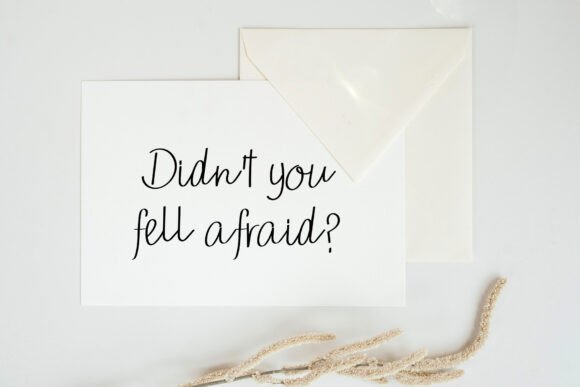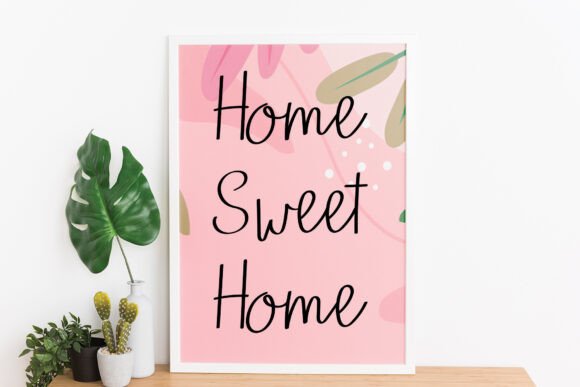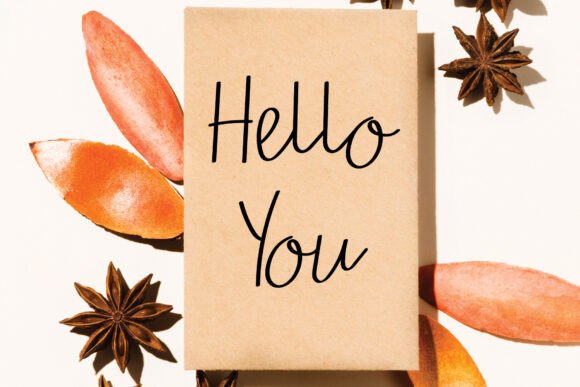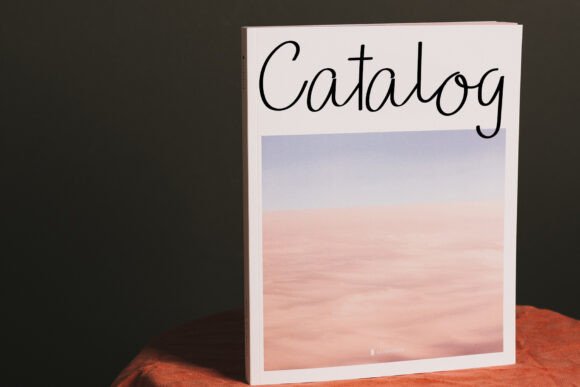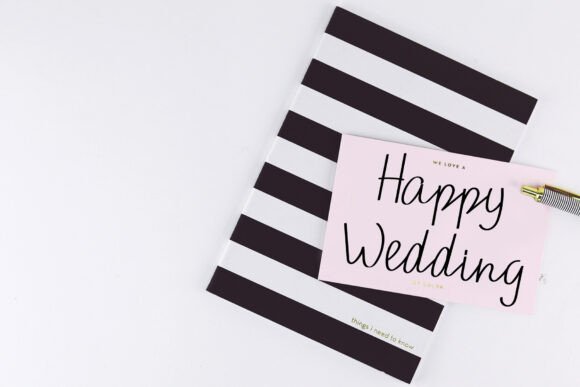
Unleash the Beauty of Garden Font in Your Designs
Have you ever been brainstorming for hours, staring at a blank page, desperately searching for the perfect font to bring your creative vision to life? It’s a moment we’ve all been in – the one where inspiration strikes, and the words start flowing. That’s exactly what happened when I stumbled upon the enchanting Garden Font, a handwritten font that exudes warmth and elegance.
This timeless beauty is perfect for crafting eye-catching logos, branding, and quotes that leave a lasting impression. With every letter having a unique and beautiful touch, Garden Font brings a personal touch to your designs, making them truly special. As a designer, you’ll appreciate the versatility and charm it adds to your work, elevating your creations to the next level.
Garden Font Key Features
- Size: The font family consists of 6 weights, ranging from Light to ExtraBold, each with its unique characteristics.
- Unique Characteristics: The font features a natural, hand-drawn feel with subtle irregularities, giving it a unique and organic look.
Garden Font Review
I was excited to dive into Garden Font, a font designed specifically for gardeners and nature lovers. Overall, I found it to be a solid choice for any project that needs a touch of whimsy and greenery.
The font is highly customizable, with a wide range of options for size, color, and style.
It’s perfect for gardening-related projects, such as labels, signs, and invitations.
The font is well-suited for both digital and print use.
The font may not be suitable for projects that require a more formal or professional tone.
It may not be the best choice for projects that require a lot of text, as the font can become cluttered and difficult to read.
The font is not as versatile as some other fonts, and may not be suitable for use in a wide range of contexts.
Overall, I would recommend Garden Font for any project that needs a touch of whimsy and greenery. While it may have some limitations, it’s a solid choice for gardeners and nature lovers looking for a unique and customizable font.
Tips for Getting the Most Out of Garden Font
Here are some tips to help you get the most out of Garden Font:
- Use Garden Font in combination with floral or botanical designs for a cohesive look.
- Use Garden Font in headings and subheadings to create a clear hierarchy of information.
Garden Font is perfect for:
- Floral and botanical designs.
- Garden and outdoor-themed projects.
- Wedding and event invitations.
Alternatives to Garden Font
Lato is a modern sans-serif font designed by Łukasz Dziedzic. It’s perfect for use in digital products, websites, and mobile applications where a clean and elegant look is desired. Lato is more versatile and can be used for a wide range of content, from body text to headlines. Compared to Garden Font, Lato is more modern and has a more neutral tone, making it suitable for a broader range of design projects.
Merriweather is a classic serif font designed by Eben Sorkin. It’s ideal for use in print materials, such as books, magazines, and posters, where a traditional and sophisticated look is desired. Merriweather is more formal and has a stronger emphasis on readability, making it suitable for content-rich designs. Compared to Garden Font, Merriweather is more formal and has a stronger typographic presence, making it suitable for high-end design projects.
Montserrat is a geometric sans-serif font designed by Julieta Ulanovsky. It’s perfect for use in urban and modern designs, such as city guides, maps, and wayfinding systems. Montserrat is more condensed and has a stronger emphasis on legibility, making it suitable for use in small spaces. Compared to Garden Font, Montserrat is more condensed and has a stronger urban feel, making it suitable for designs that require a modern and edgy look.